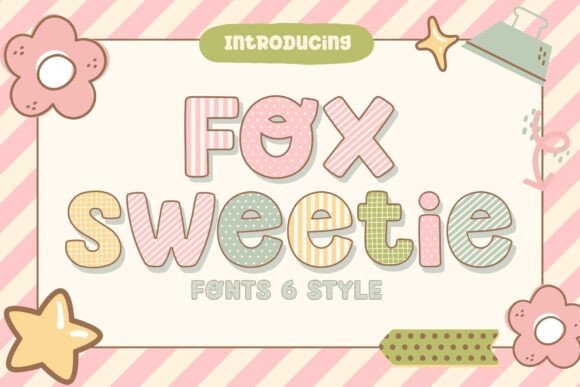
Introducing Fox Sweetie Font: The Ultimate Display Font for Creative Designs
Are you looking for a font that can add a captivating and energetic touch to your designs? Look no further than Fox Sweetie Font, a 6-style font that is cool, cute, and playful. This display font is perfect for use in various design projects, including publications, menus, logos, business cards, and even printed on t-shirts. In this article, we will explore the features and benefits of Fox Sweetie Font and how it can elevate your designs to the next level.
What is Fox Sweetie Font?
Fox Sweetie Font is a 6-style display font that is designed to add a unique and energetic touch to your designs. Its vibrant and expressive design makes it perfect for creating attention-grabbing headlines, t-shirt typography, banners, product labels, and more. The font is cool, cute, and playful, making it suitable for a wide range of design projects.
Key Features of Fox Sweetie Font
- 6 Style Font: Fox Sweetie Font comes in 6 different styles, allowing you to choose the one that best suits your design needs.
- Cool, Cute, and Playful: The font has a unique and playful design that adds a captivating and energetic touch to your designs.
- Vibrant and Expressive Design: The font’s vibrant and expressive design makes it perfect for creating attention-grabbing headlines and typography.
- Multipurpose: Fox Sweetie Font is perfect for use in various design projects, including publications, menus, logos, business cards, and even printed on t-shirts.
Benefits of Using Fox Sweetie Font
Using Fox Sweetie Font in your designs can bring numerous benefits. Here are some of the advantages of using this font:
- Unique and Eye-Catching: Fox Sweetie Font is designed to grab attention and add a unique touch to your designs.
- Versatile: The font is suitable for a wide range of design projects, from publications to t-shirt designs.
- Easy to Read: Despite its playful design, Fox Sweetie Font is easy to read, making it perfect for use in headlines and typography.
- Customizable: With 6 different styles to choose from, you can customize the font to fit your design needs.
Use Cases for Fox Sweetie Font
Fox Sweetie Font is a versatile font that can be used in various design projects. Here are some use cases for this font:
- Publications: Use Fox Sweetie Font to create attention-grabbing headlines and typography for magazines, newspapers, and books.
- Menus: Add a playful touch to your restaurant or cafe menu with Fox Sweetie Font.
- Logos: Use Fox Sweetie Font to create a unique and memorable logo for your brand.
- Business Cards: Add a touch of personality to your business cards with Fox Sweetie Font.
- T-Shirt Designs: Use Fox Sweetie Font to create fun and playful designs for t-shirts.
Tips for Using Fox Sweetie Font
Here are some tips for using Fox Sweetie Font in your designs:
- Pair with Other Fonts: Pair Fox Sweetie Font with other fonts to create a unique and visually appealing design.
- Experiment with Colors: Experiment with different colors to find the perfect combination that suits your design.
- Use in Headlines: Use Fox Sweetie Font in headlines to grab attention and add a playful touch.
- Keep it Simple: Keep your design simple and avoid cluttering it with too much text or graphics.
Fox Sweetie Font is a unique and versatile display font that can add a captivating and energetic touch to your designs. With its 6 different styles, vibrant and expressive design, and multipurpose use, this font is perfect for a wide range of design projects. By following the tips outlined in this article, you can create stunning designs that showcase the full potential of Fox Sweetie Font.